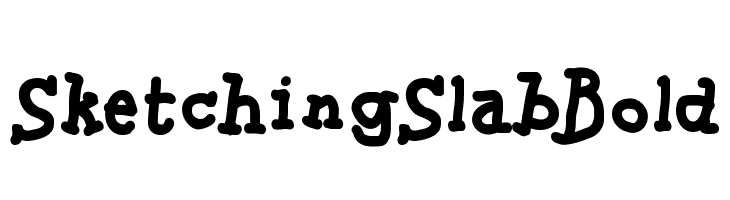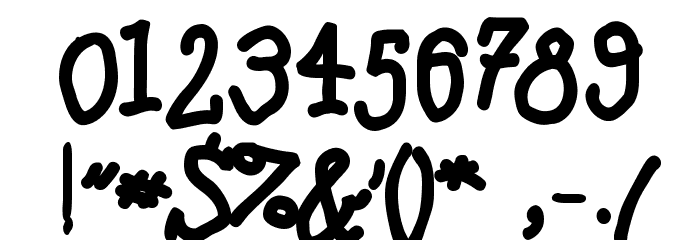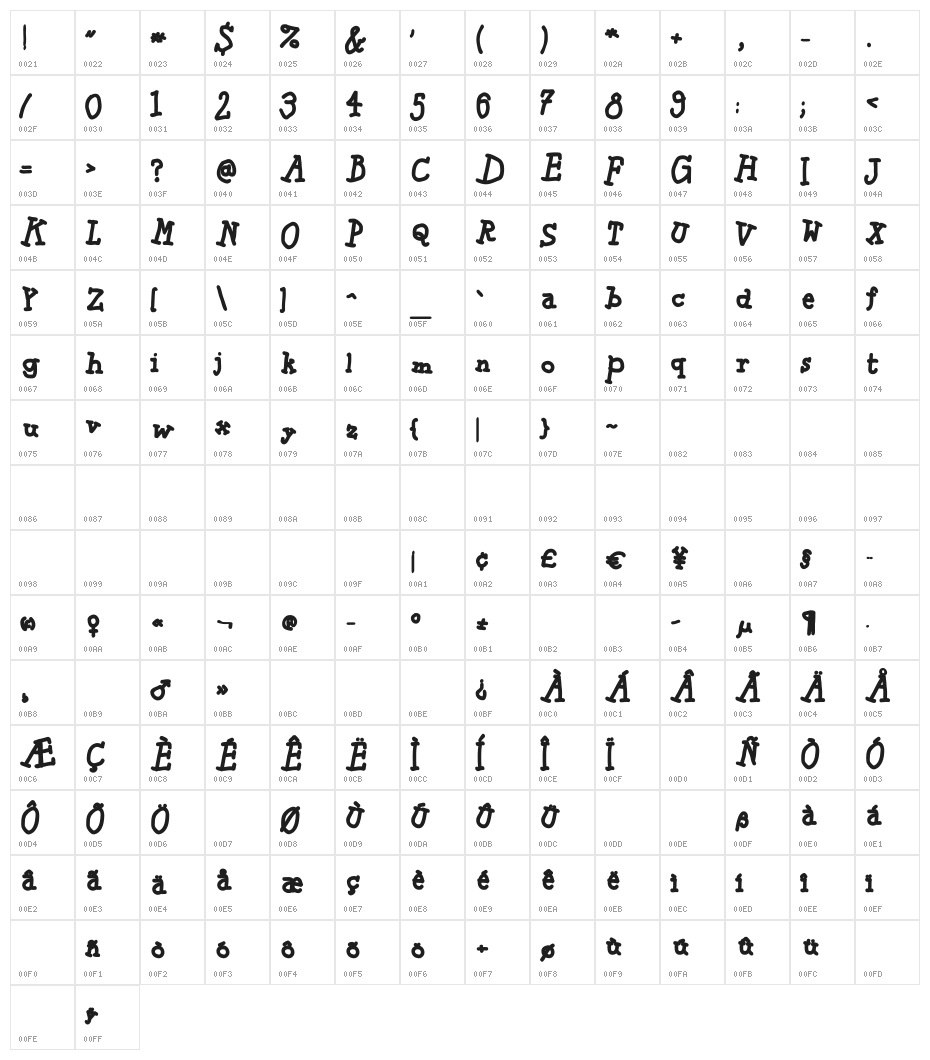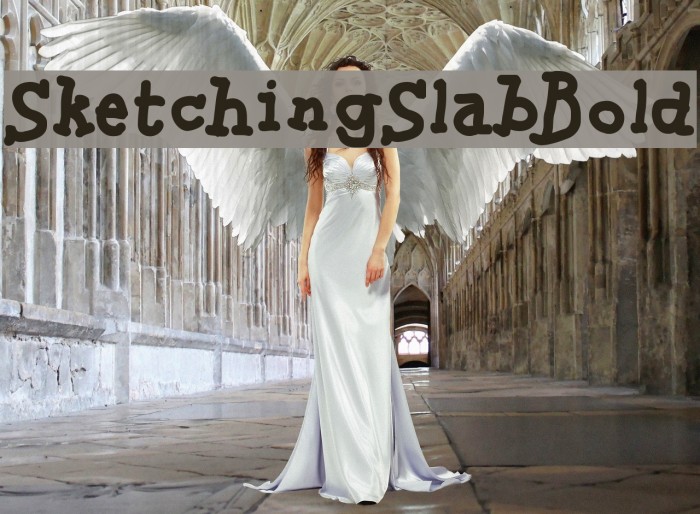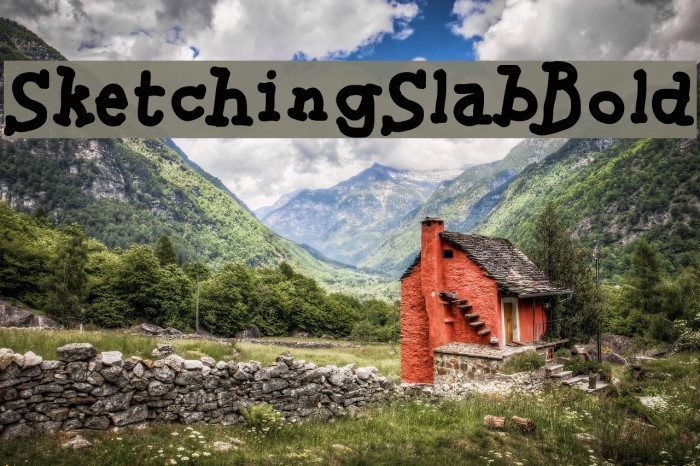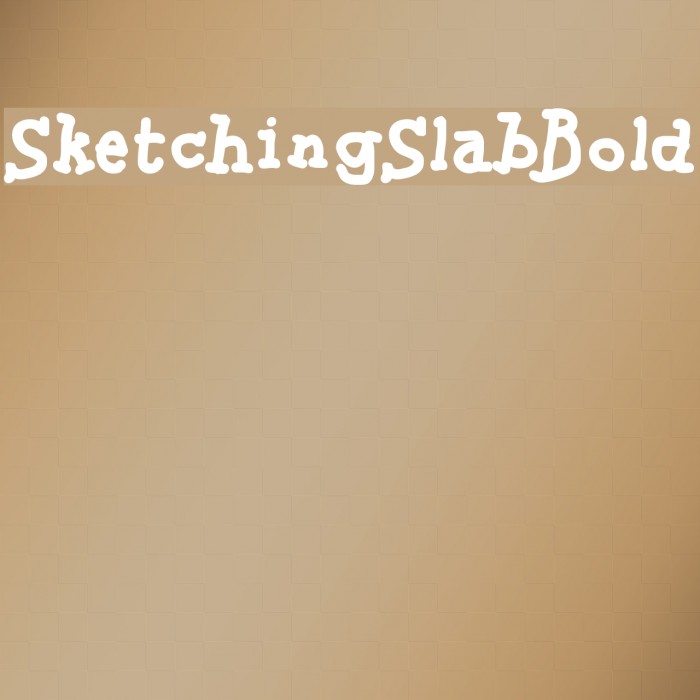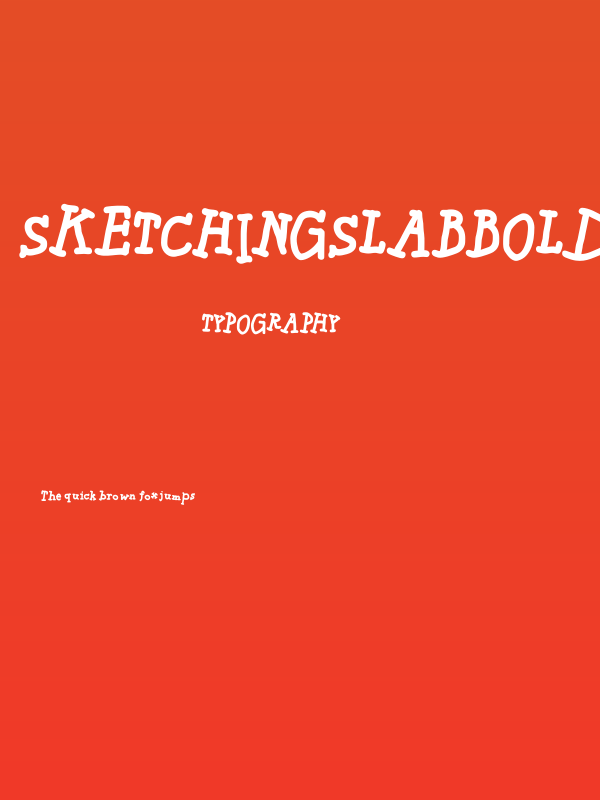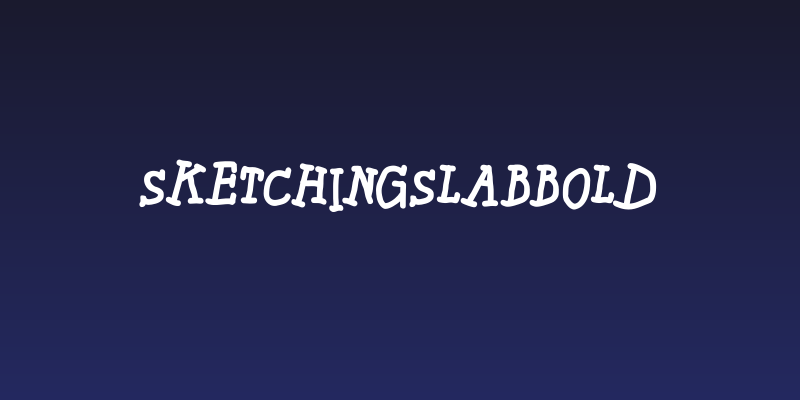
SketchingSlabBold Font
SketchingSlabBold Description
This font features a bold and playful style with a hand-drawn aesthetic. The characters are thick and rounded, giving them a friendly and approachable appearance. The uppercase and lowercase letters maintain a consistent weight, while the numbers and special characters are designed to match the whimsical style. The font's strokes are uneven, adding to its sketch-like quality, and the overall design is reminiscent of a casual, artistic script. This font is ideal for projects that require a fun and informal touch, such as children's books, creative posters, or playful branding.
| Overall Style | Playful, Artistic, Casual |
| Proposed Projects | Children's books, creative posters, playful branding, informal invitations. |